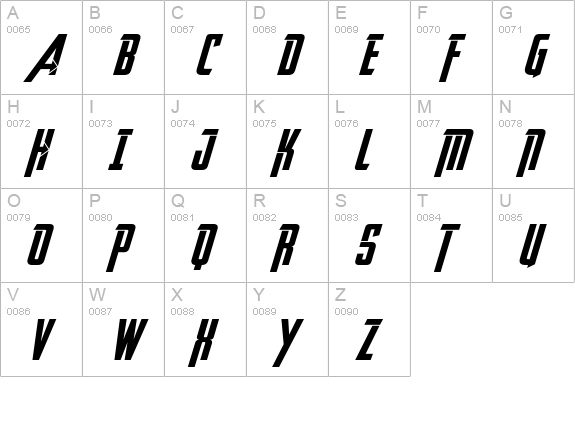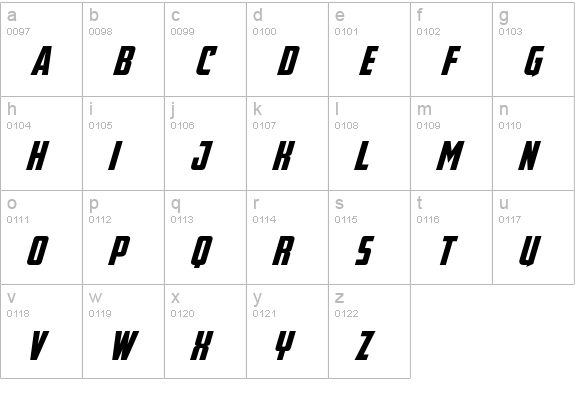
Avengeance Heroic Avenger Bold Font Details
Avengeance Heroic Avenger Bold is a strong, high-contrast variant in the Avengeance typeface family \xE2\x80\x94 well suited to headlines, attention-grabbing titles, and strong calls-to-action.